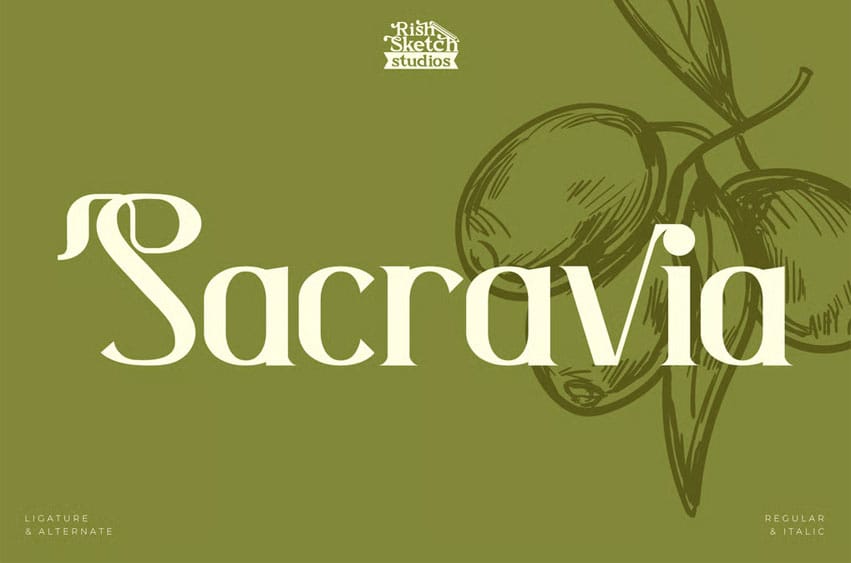
Sacravia Font
Sacravia Font Modern Serif Font, from Rishsketch Studios, is a premium Modern Serif Font, perfect for any project that requires a distinctive, and premium feel.
Ligature, Alternate, & Multilingual